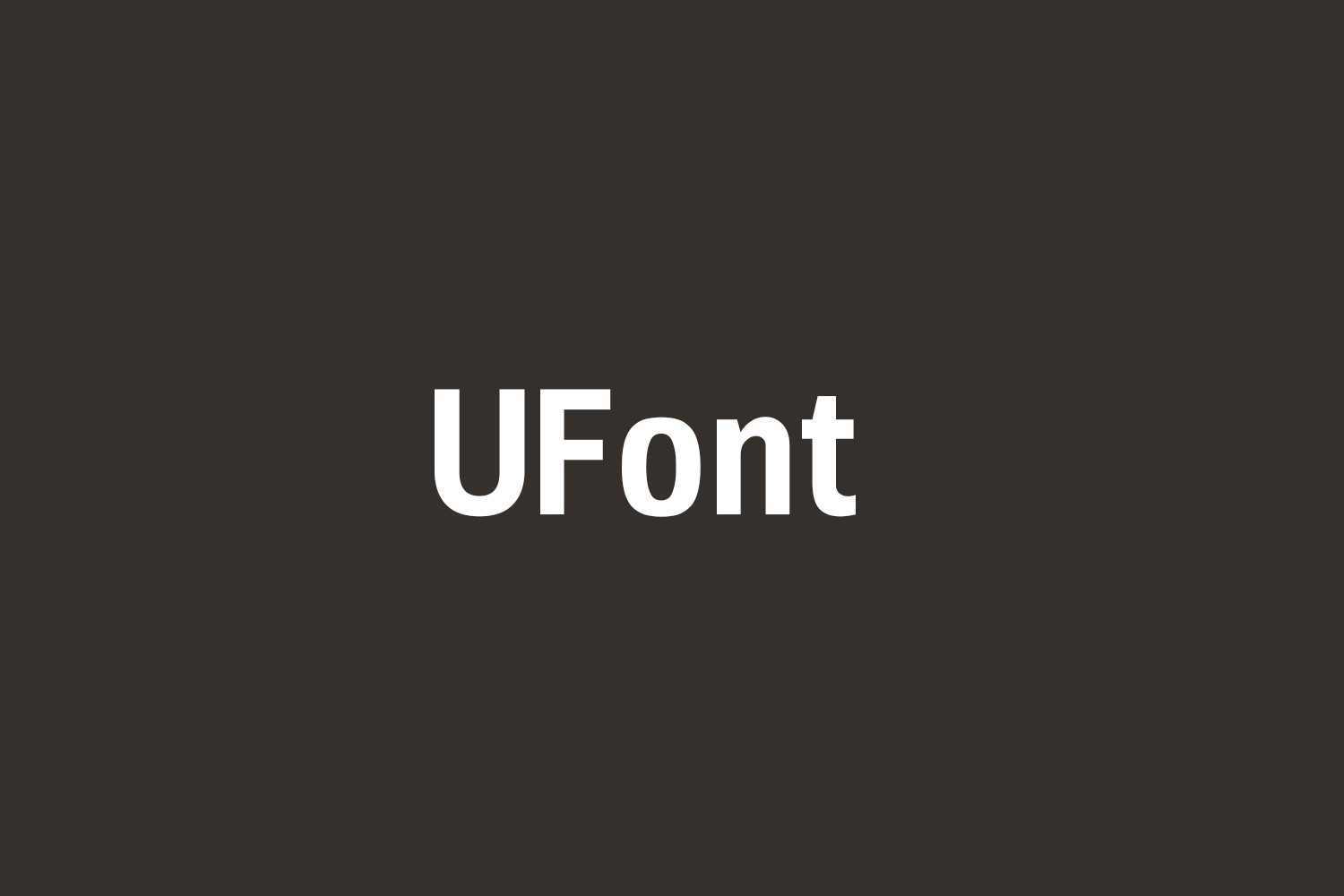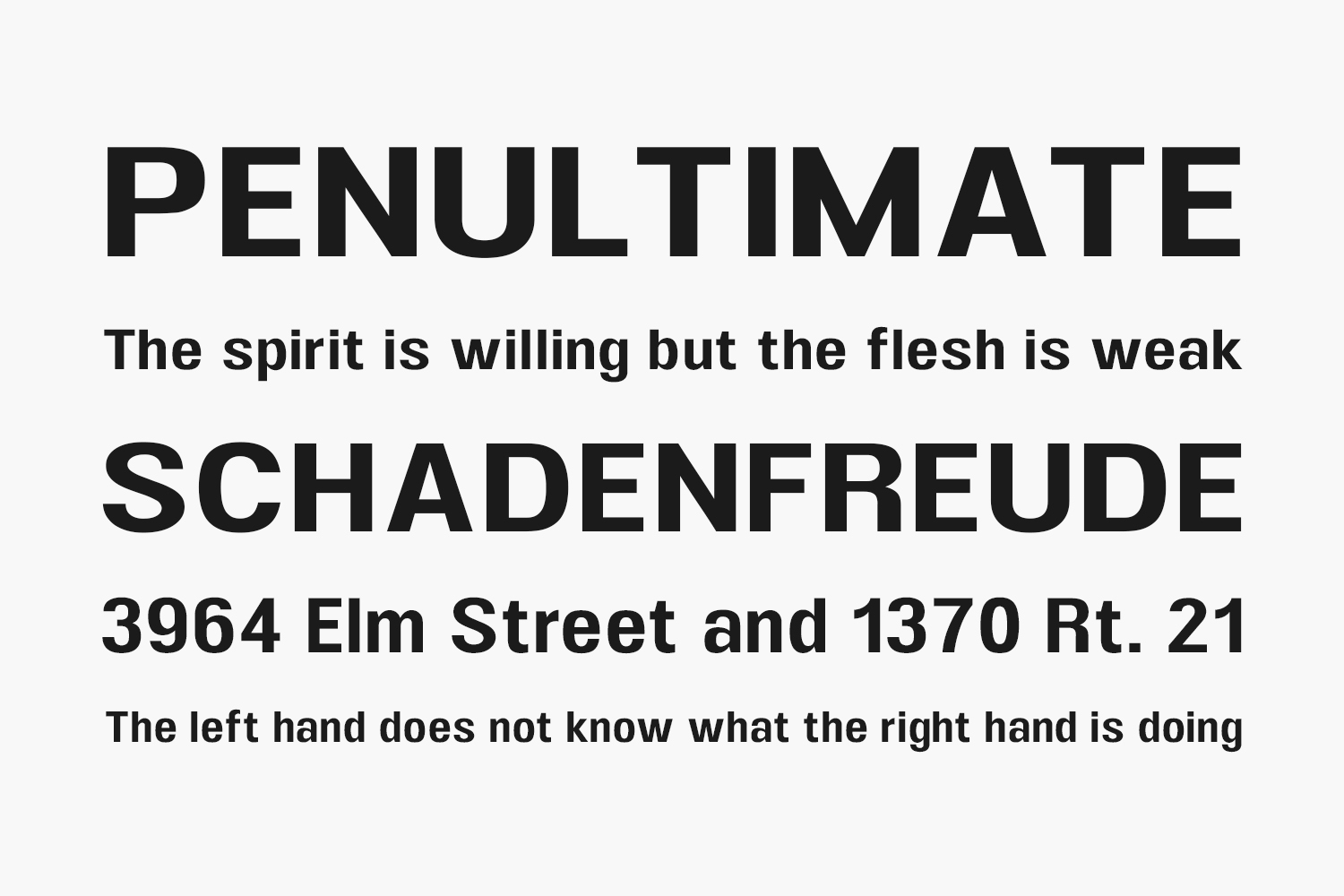
UFont Free Font is the first release of UFont Sans. This font started out as a logo design project for UTrition. It already has an extended character set and I have plans to add to this in due course. Please note that it is free to use for personal projects only. You will need to but a license if you want to use it for commercial purposes.
Designed by Steve Gardner